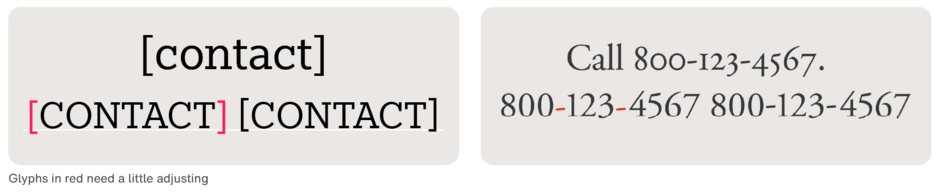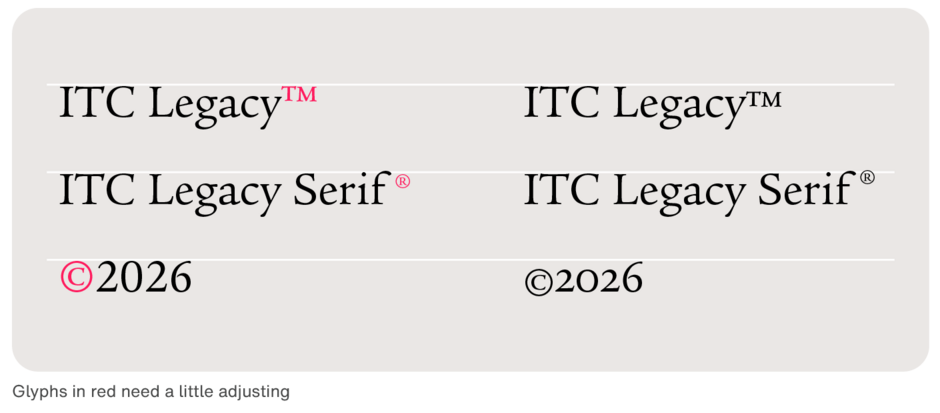
Manual: Glyph Positioning - Small Moves for Big Results
Fonts are collections of glyphs carefully designed to work harmoniously in nearly any sequence. Sometimes, however, the best typography emerges only after subtle adjustments.
Occasionally, manual refinements – such as optically shifting individual characters or glyphs – are needed to achieve visual balance for the human eye. Without these small tweaks, some characters may appear awkward or out of place. While not disastrous, these minor imperfections can disrupt the smooth, seamless flow of information.
One common adjustment involves the vertical positioning of glyphs to optimize their placement. Although most design software makes these tweaks easy to execute, it takes a keen eye and attention to detail to know when they are needed.
In most fonts, parentheses, brackets, and braces are designed to vertically center around lowercase letters. When they enclose all-caps text, however, they often sit too low. Raising these characters slightly to visually align with the height of the all-caps text creates a more balanced and aesthetically pleasing appearance. This principle often applies to bullets and boxes.
Hyphens, and dashes are also commonly drawn to center between lowercase characters. When used with cap-height characters, they appear too low. Raising them slightly creates better typography.
The same holds true for bullets, dashes and ornaments.
Both ™ and ® symbols are placed as superscripts relative to the main text, usually appearing at the top-right corner of the word or logo they are trademarking or registering. They should smaller than the main text but still large enough to be readable.
If you want to finesse your typography to achieve a professional-looking result, don’t forget to review these important, yet often overlooked details.